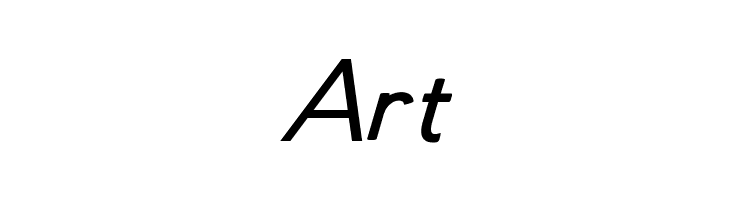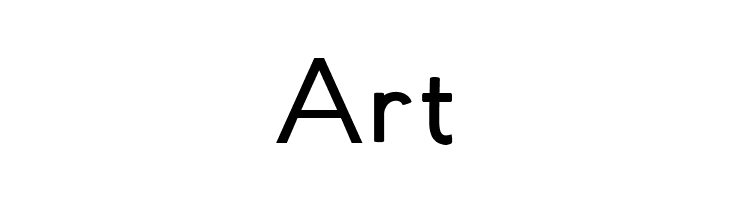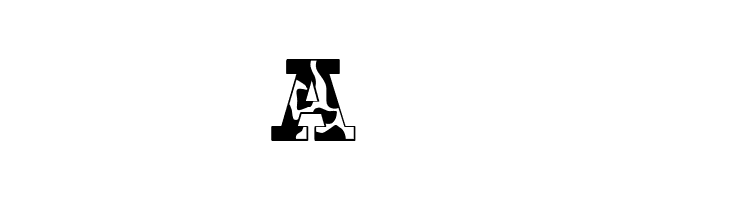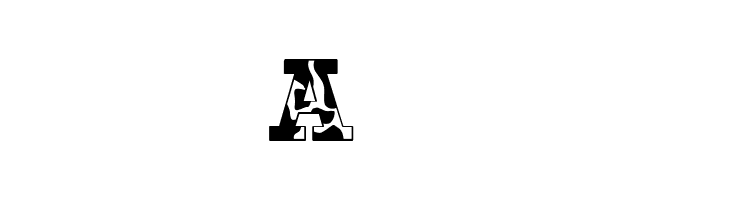
• Hanif Bold
A bold, modern font with thick strokes and high legibility.
• Hansville Bold
A bold, modern sans-serif font with a clean and assertive style.
• Hansville Bold Italic
A bold, italicized font with strong, slanted letterforms and a clean, dynamic appearance.
• Hansville Bold Italic
A bold, italic typeface with a modern and dynamic style.
• Hanuman Bold
A bold, modern sans-serif font with excellent legibility and balanced character spacing.
• Hanzui Bold
A bold, geometric font with a modern and impactful design.
• Happy Birthday, Baby [Bold]Regular
A playful, handwritten font with whimsical loops and curls.
• Happy Birthday, Baby [Bold]Regular
A playful, handwritten font with loops and curls, offering a whimsical and friendly style.
• Happy Cow Bold
A bold, decorative font with a cow pattern design.
• Happy Cow Bold